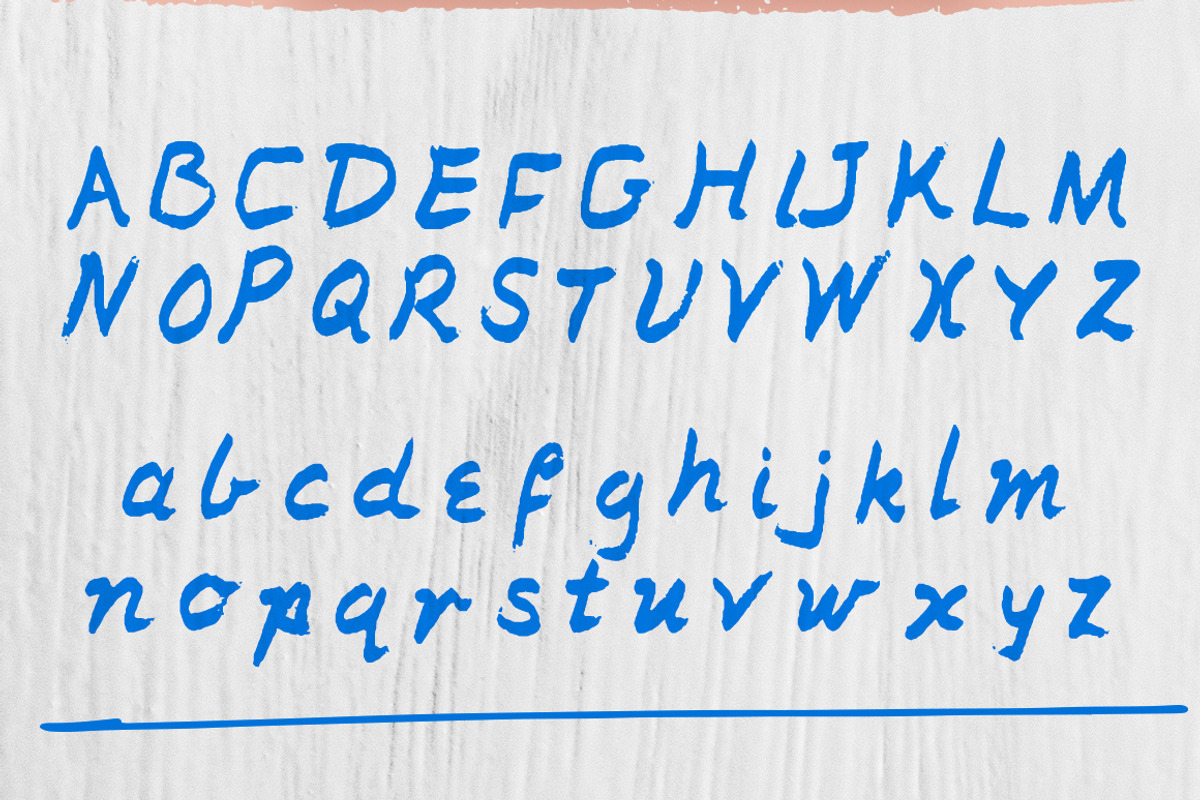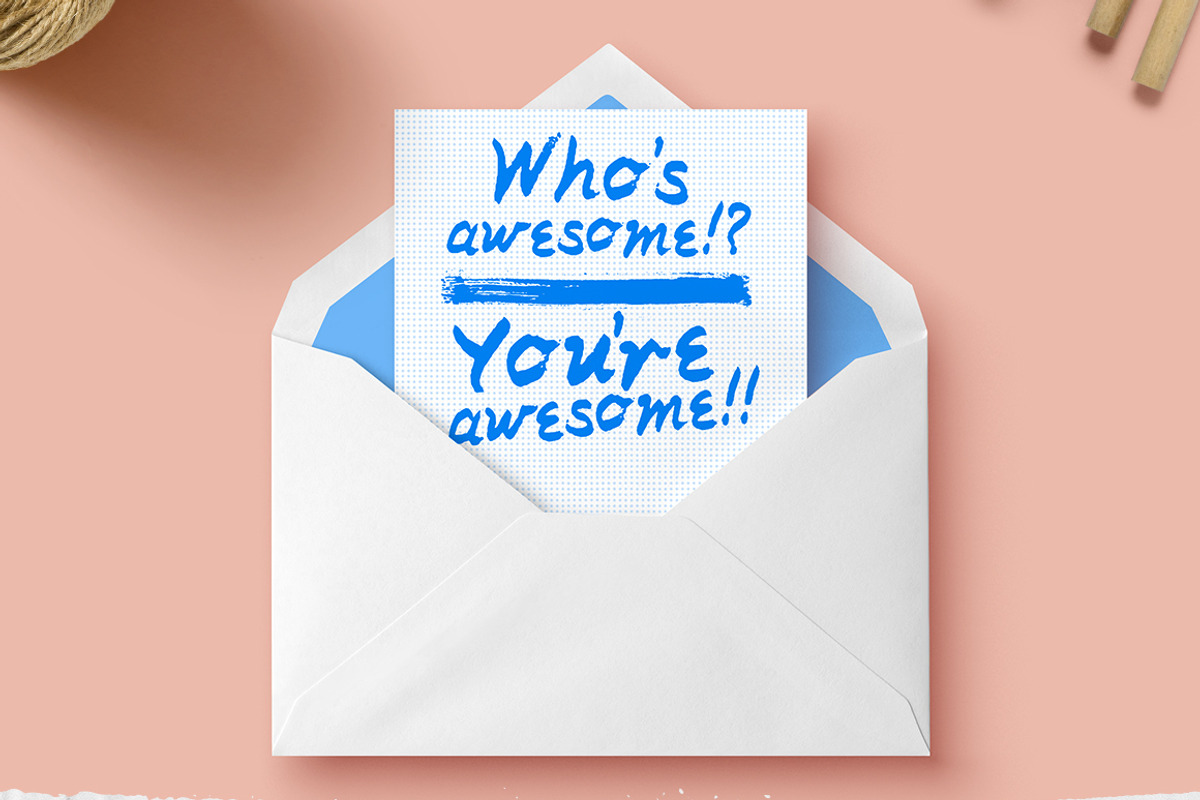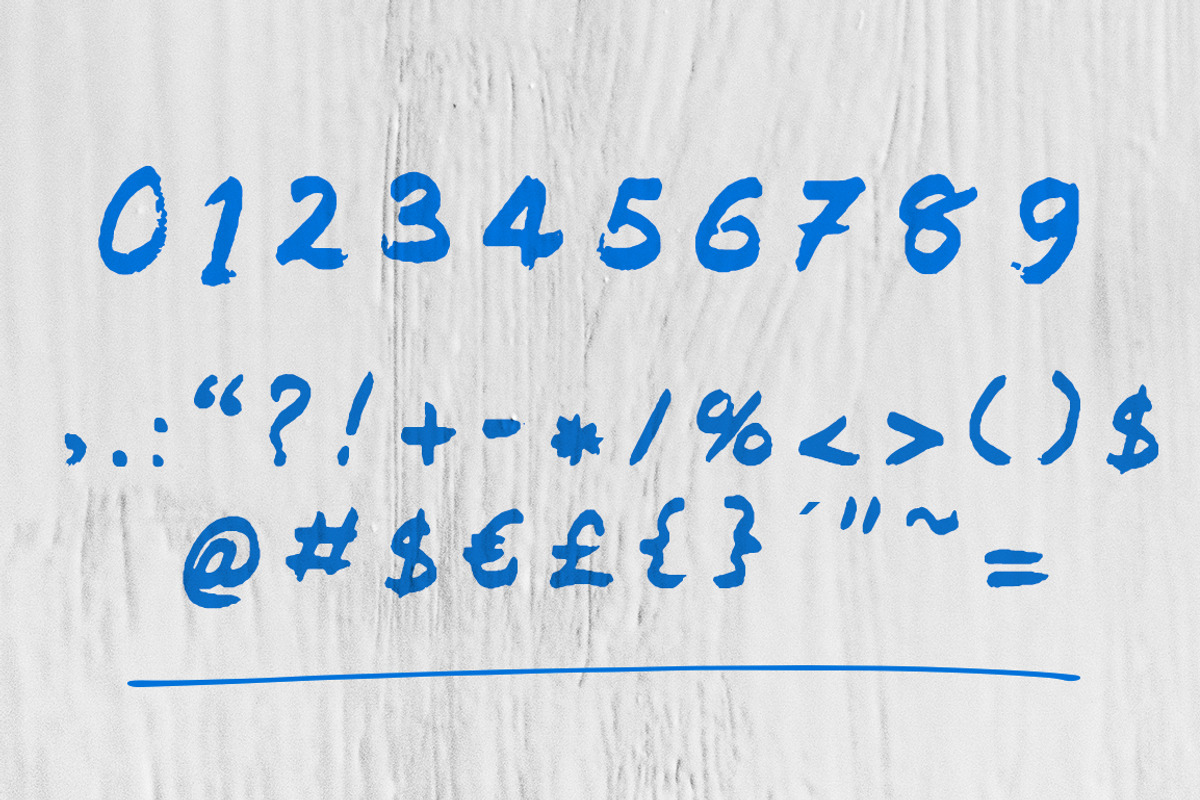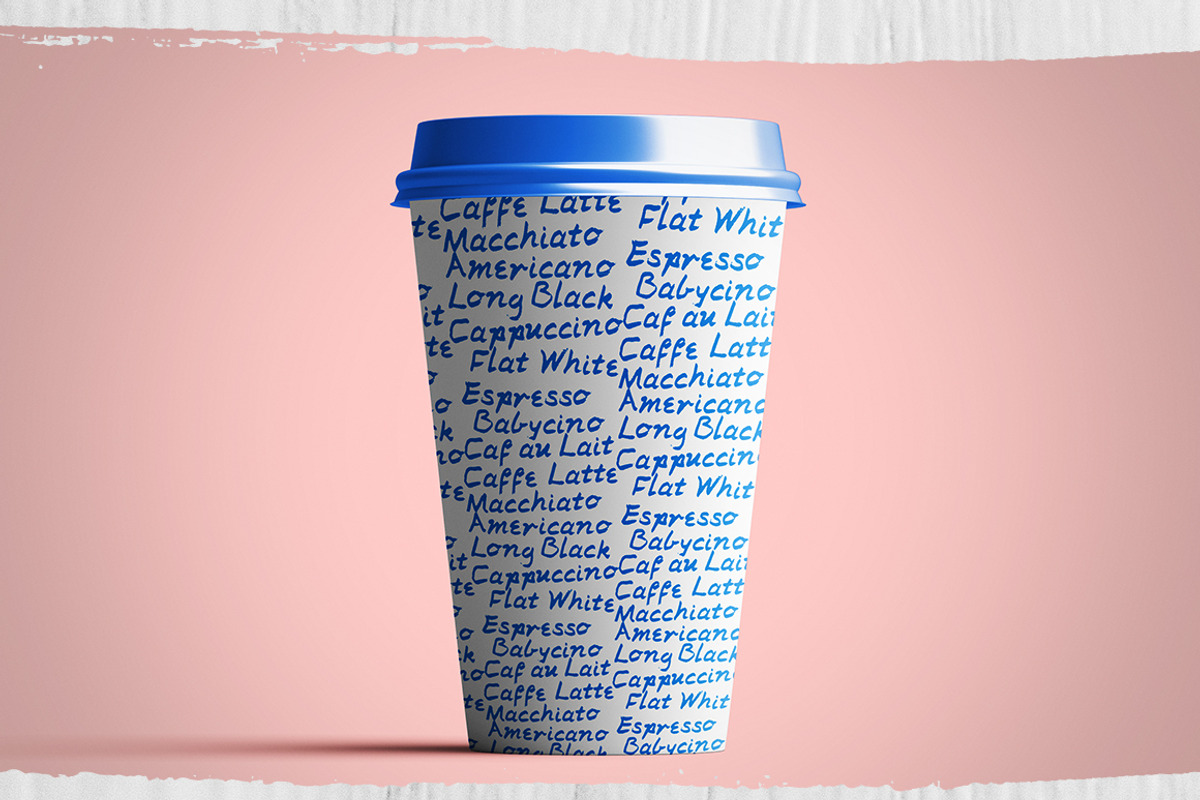
Yiayia Handwritten Font
Yiayia Handwritten Font by Huebert World is a font selected for branding, posters, packaging, typography.
Why Yiayia Handwritten Font is worth a look
Yiayia Handwritten Font by Huebert World fits naturally into Branding, posters, packaging, typography.